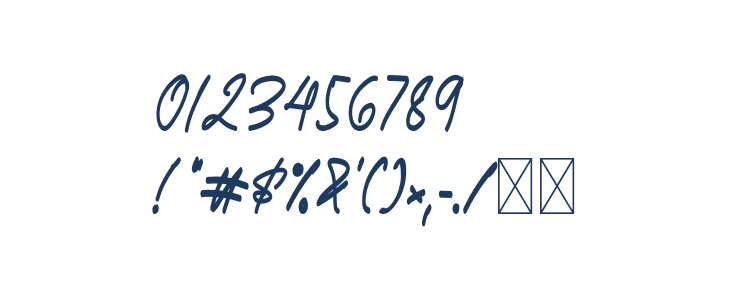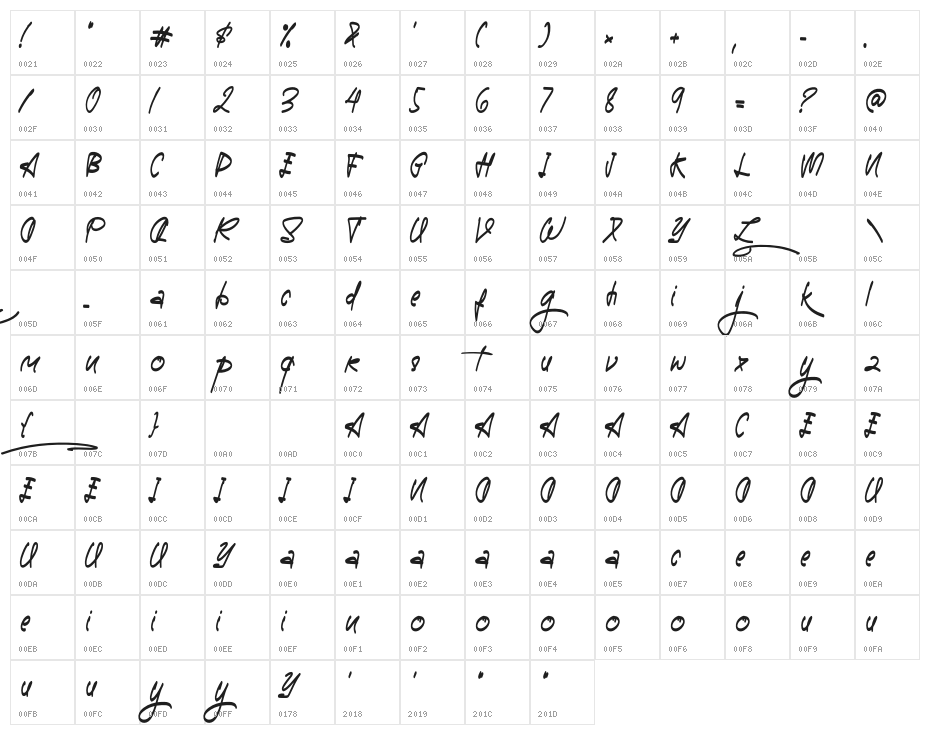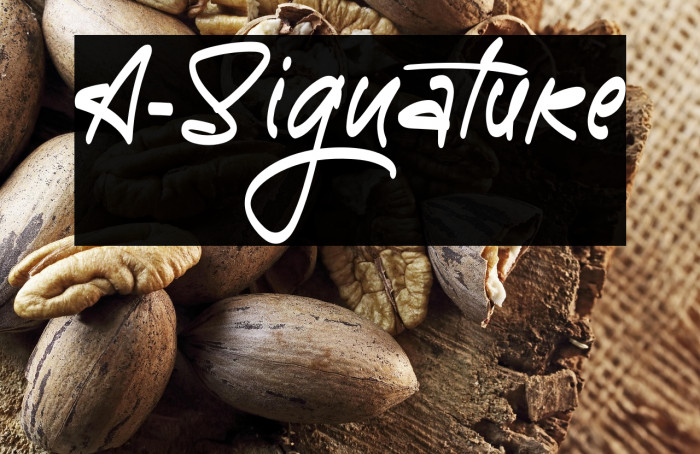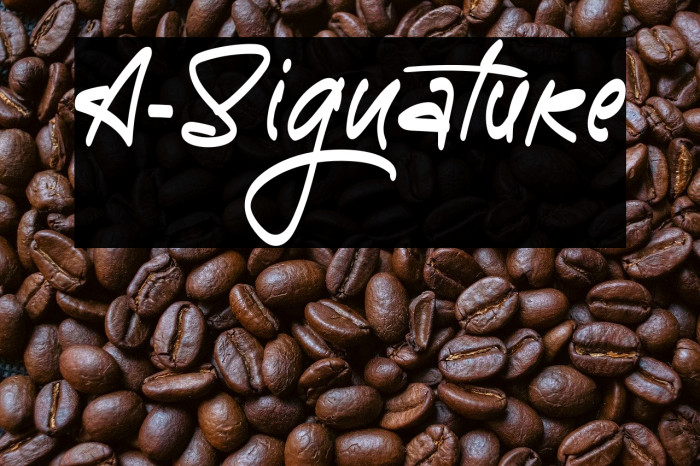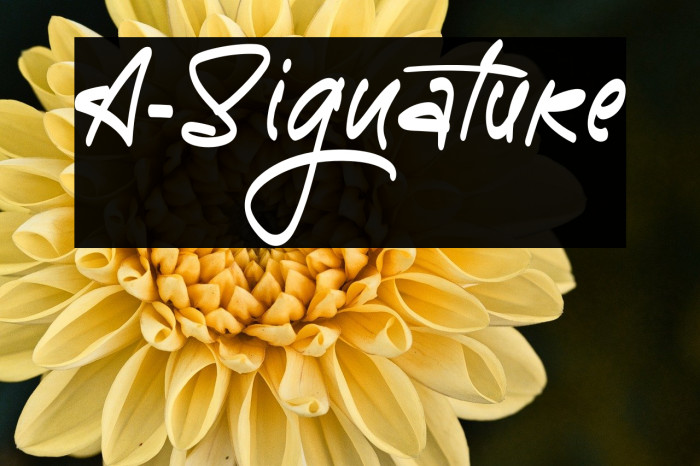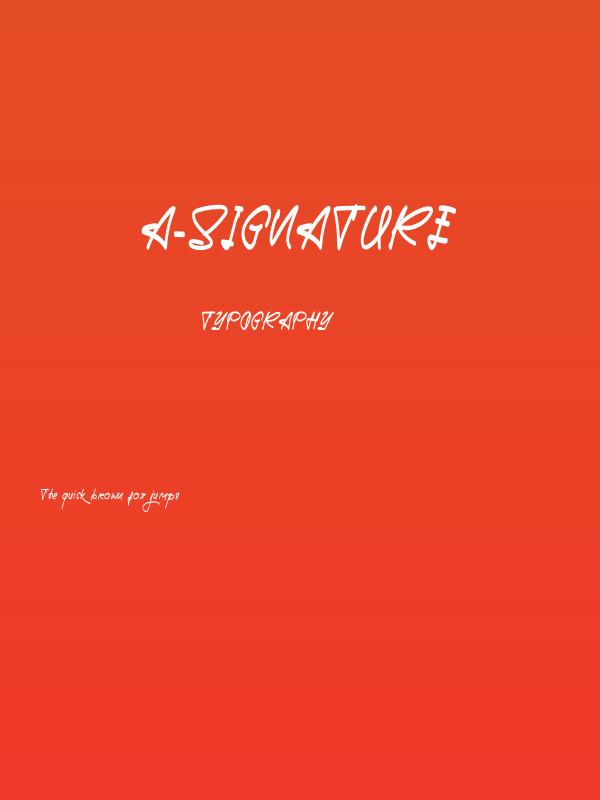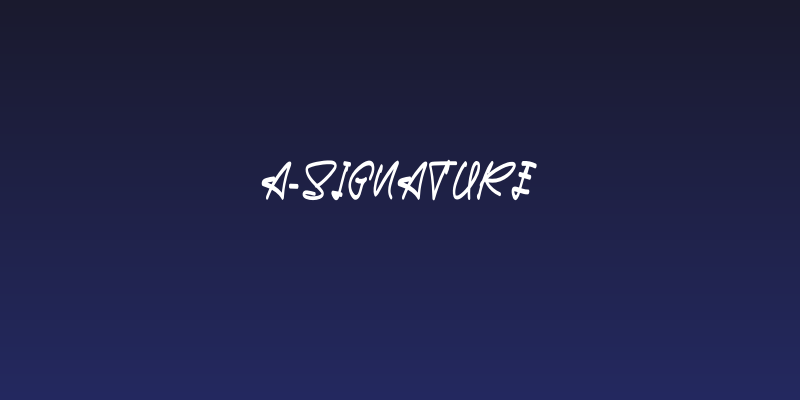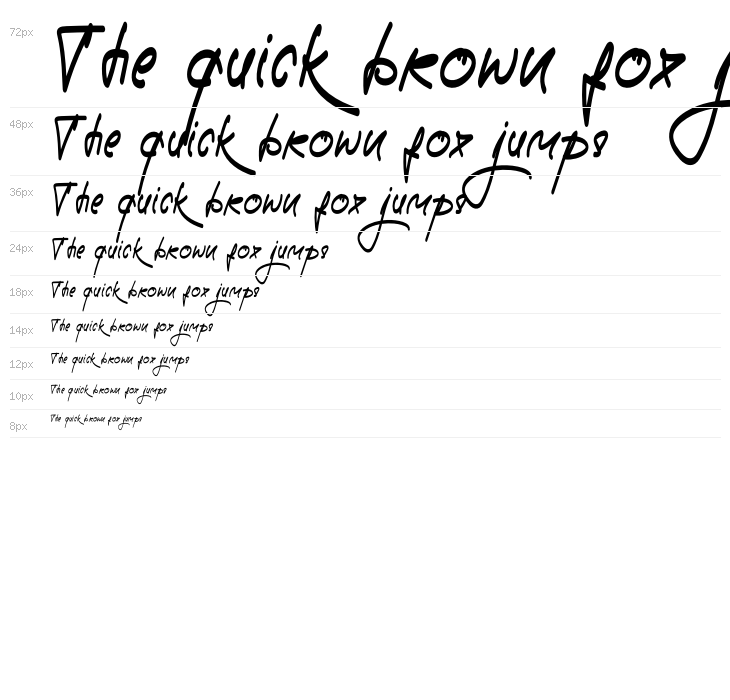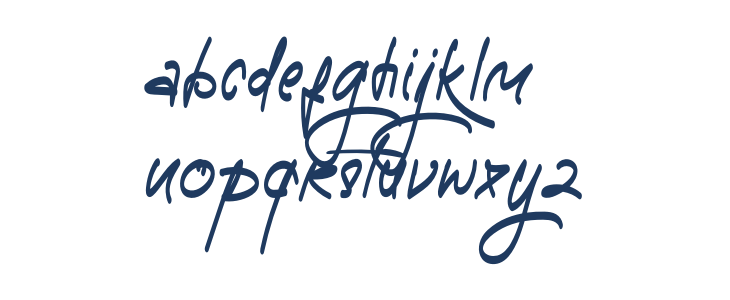
A-Signature Font
A-Signature Description
This font exudes a casual, handwritten style with a dynamic and fluid appearance. The letters are interconnected, mimicking the natural flow of cursive handwriting. Each character has a unique flair, with varying stroke thickness that adds to its lively and spontaneous feel. The uppercase letters maintain a consistent height, while the lowercase letters are slightly smaller, creating a balanced and harmonious look. The numbers and special characters follow the same energetic style, making them blend seamlessly with the alphabet. This font is perfect for projects that require a personal touch or an informal, artistic vibe.
| Overall Style | Casual, Artistic |
| Use Case | Logos, Invitations, Personal Branding |
| Proposed Projects | Ideal for personal branding, greeting cards, invitations, and creative projects that require a personal touch. |